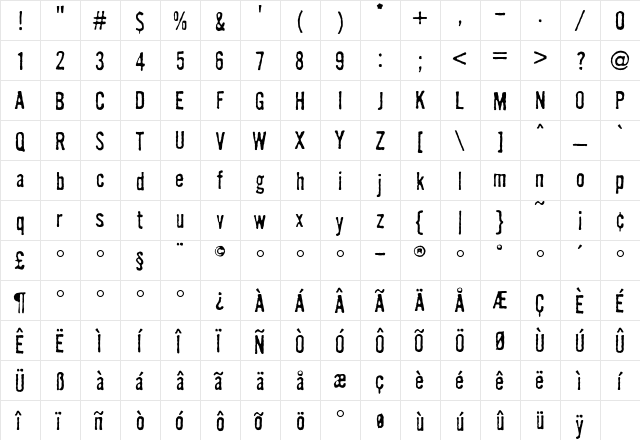
Badhouse Light
Design Context for Badhouse Typeface
Badhouse takes a measured approach to typography — its balanced proportions and neutral character make it a reliable workhorse for both digital and print work. Its slender proportions lend an understated elegance to any composition.